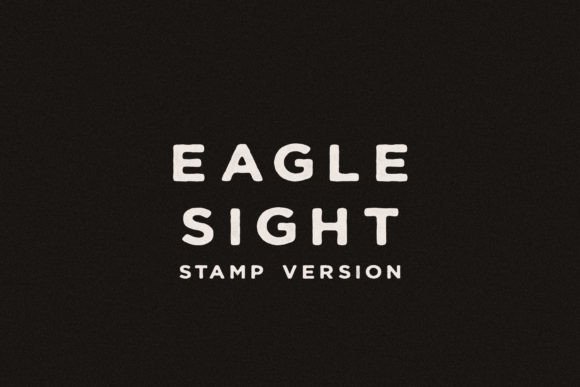
Dive into the world of Eagle Sight Stamp Font, the captivating sans-serif font that will redefine your design projects. Discover its crisp lines, elegant curves, and a retro charm that breathes new life into your creations.
Eagle Sight's simplicity and grace will captivate you, allowing your words to shine with a timeless allure. Its versatility shines across a spectrum of designs, effortlessly adapting from retro aesthetics to modern masterpieces. With its range of weights and styles, this font family grants you the artistic freedom to craft visuals that leave a lasting impression.
As you explore the depths of Eagle Sight, you'll uncover its boundless potential. Its vintage-inspired essence adds a touch of nostalgia, while its contemporary twist keeps it relevant and fresh. Whether you're crafting logos, posters, or digital designs, Eagle Sight promises to elevate your work to new heights.